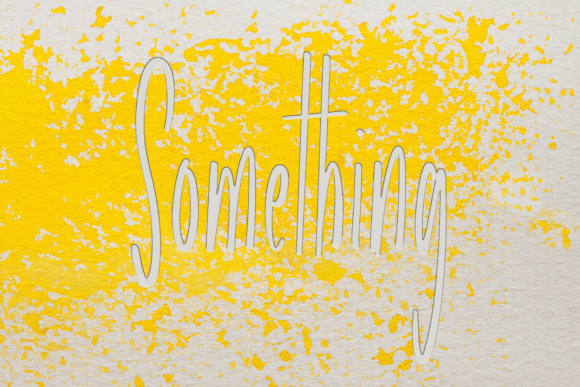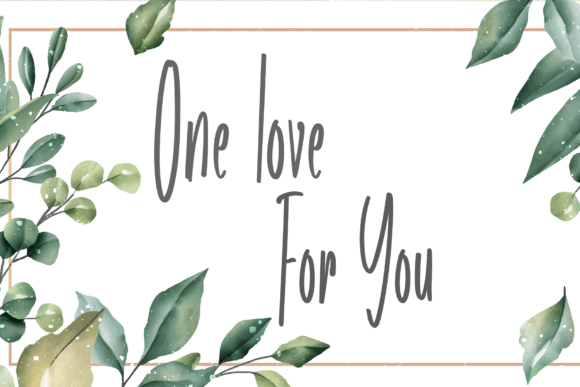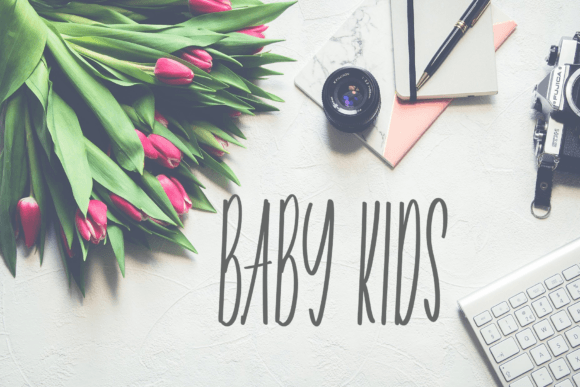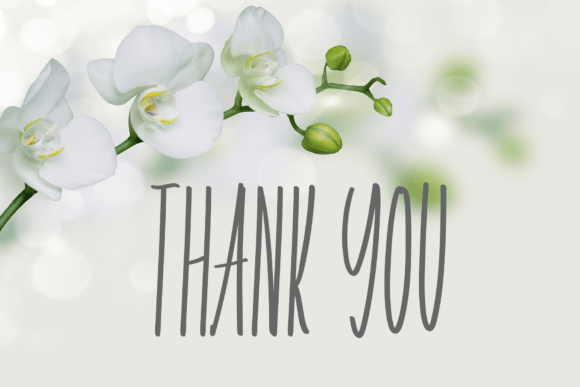
Introducing Butterbread Font: The Ultimate Handwritten Font for Creative Designs
Are you a designer or crafter looking for a font that can elevate your creative projects to new heights? Look no further than Butterbread Font, a cool, simple, and playful handwritten font that’s incredibly versatile and perfect for a wide range of designs. In this article, we’ll dive into the world of Butterbread Font, exploring its features, benefits, and uses, and showing you how it can bring your designs to life.
The Charm of Butterbread Font
Butterbread Font is a beautifully crafted handwritten font that’s designed to add a touch of personality and whimsy to your designs. Its simple yet playful style makes it perfect for a variety of projects, from creative crafts to digital designs. The font’s clean lines and rounded edges give it a friendly and approachable feel, making it ideal for designs that require a personal touch.
Key Features of Butterbread Font
- Handwritten style: Butterbread Font is a genuine handwritten font, adding a personal touch to your designs.
- Simple and playful: The font’s simple yet playful style makes it perfect for a wide range of designs.
- Incredibly versatile: Butterbread Font can be used for various design projects, from crafts to digital designs.
- Easily readable: The font’s clean lines and rounded edges make it easy to read, even at small sizes.
Benefits of Using Butterbread Font
So, why should you choose Butterbread Font for your designs? Here are just a few benefits of using this amazing font:
- Adds personality to your designs: Butterbread Font’s unique style adds a touch of personality to your designs, setting them apart from the rest.
- Perfect for creative projects: The font’s playful style makes it ideal for creative projects, such as crafts, DIY tutorials, and social media graphics.
Uses of Butterbread Font
Butterbread Font is incredibly versatile, making it perfect for a wide range of design projects. Here are just a few ideas to get you started:
- Crafting projects: Use Butterbread Font to add a personal touch to your crafting projects, such as handmade cards, gift tags, and scrapbooking pages.
- Digital designs: The font is perfect for digital designs, including social media graphics, blog posts, and website headers.
- Signage and display graphics: Butterbread Font can be used for signage and display graphics, such as event signs, posters, and flyers.
- Packaging design: The font’s playful style makes it ideal for packaging design, adding a touch of personality to product labels and packaging.
Tips for Using Butterbread Font
Here are a few tips for getting the most out of Butterbread Font:
- Experiment with font sizes: Try using Butterbread Font in different sizes to add visual interest to your designs.
- Pair with other fonts: The font pairs well with other fonts, so don’t be afraid to experiment with different font combinations.
- Use in combination with images: Butterbread Font looks great when used in combination with images, adding a touch of personality to your designs.
In conclusion, Butterbread Font is a cool, simple, and playful handwritten font that’s perfect for designers and crafters looking to add a touch of personality to their designs. Its versatility, readability, and ease of use make it an ideal choice for a wide range of design projects. Whether you’re working on a crafting project, digital design, or signage, Butterbread Font is sure to elevate your designs to new heights. So why wait? Add Butterbread Font to your favorite creative ideas and watch them come alive!